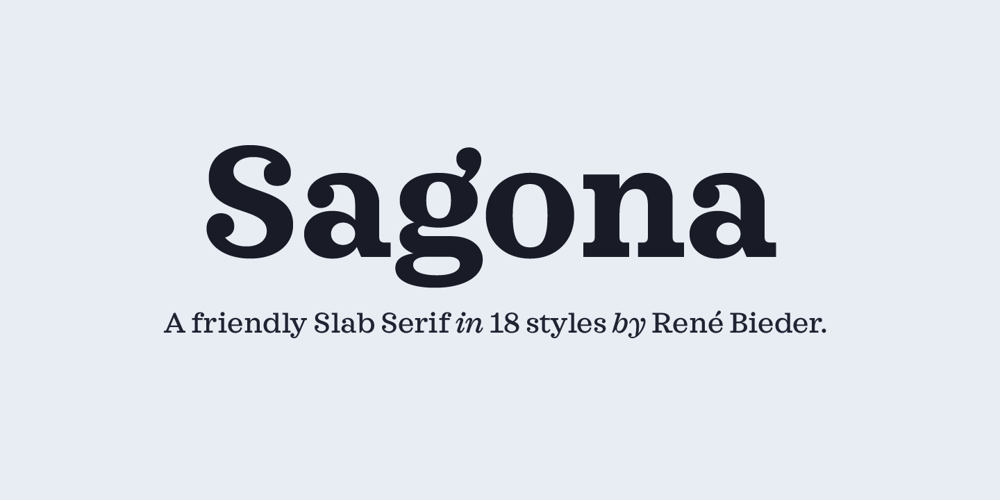
Sagona
Sagona font
Sagona Font Family was designed by René Bieder and published by René Bieder. Sagona contains 20 styles and family package options. Sagona is a contemporary slab serif building on the clarendon/ionic model dating back to the 19th century. Like its most famous representative Clarendon, Sagona features strong serifs and a variable stroke contrast resulting in a versatile typeface working great in headlines and small text sizes. Where great typefaces like Sentinel, Belizio or FF Hertz are staying close to the industrial and strict appearance, Sagona is focusing on a warm and welcoming approach, emphasizing a subtle elegance especially in the mid weights. The family comes in nine weights with matching true italics. It is equipped with a large set of alternative glyphs, ligatures, old style numbers, initials and finitials, two sets of arrows and many more opentype features making it a perfect choice for professional type setting.